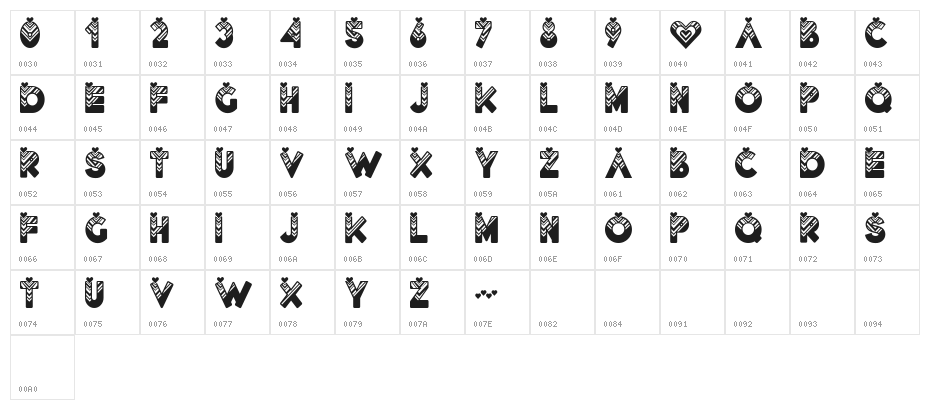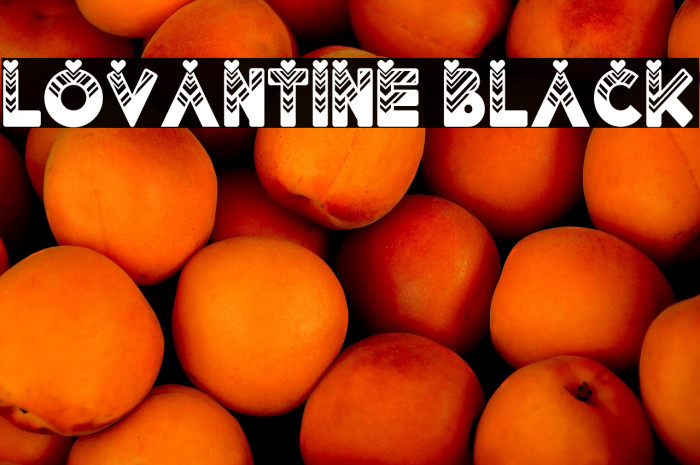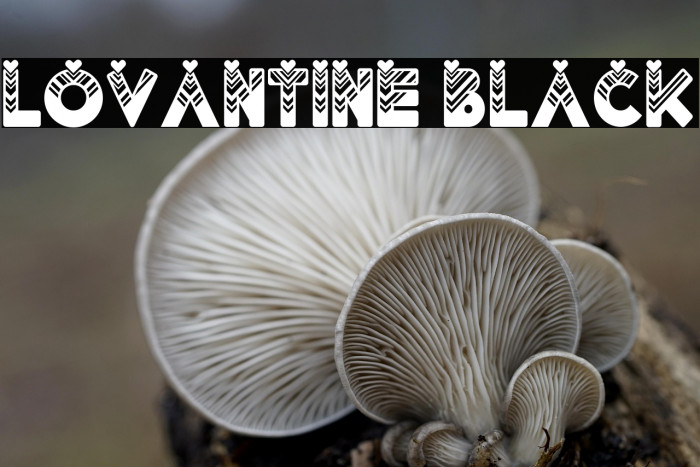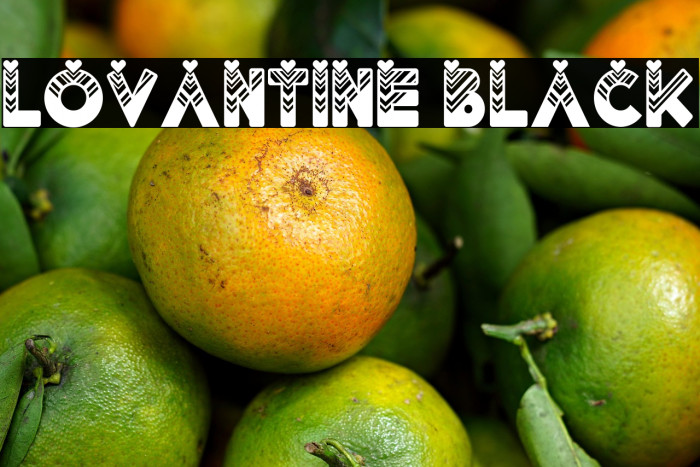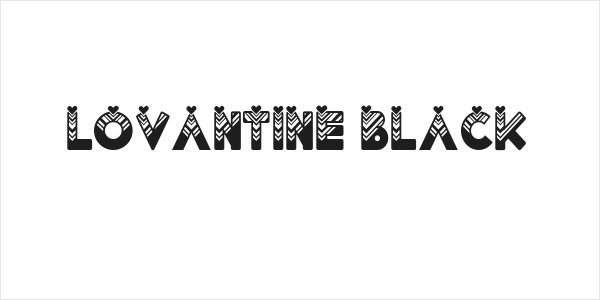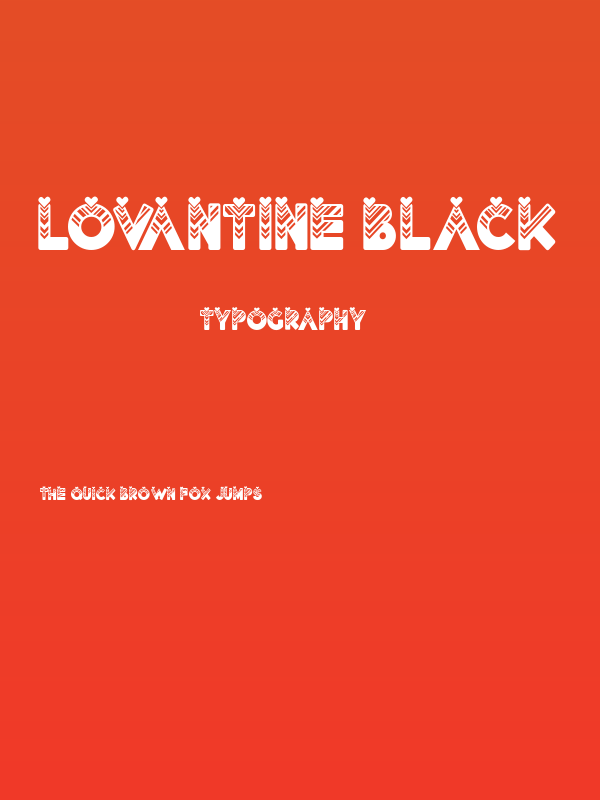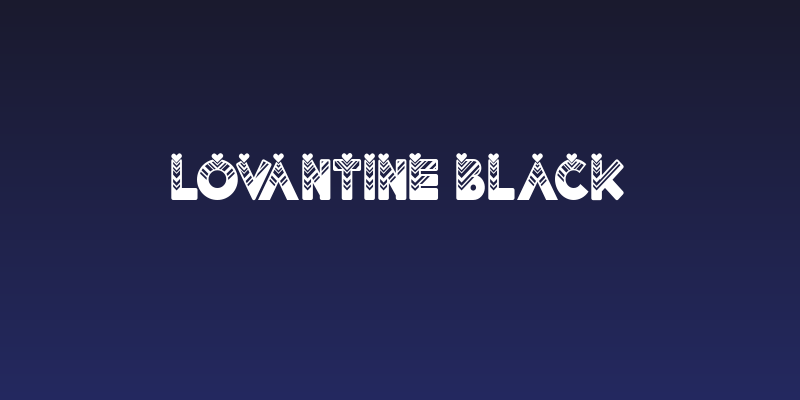
Lovantine Black Font
Lovantine Black Description
This font features a bold and playful design with a decorative style. Each character is adorned with heart-shaped accents at the top, adding a whimsical touch. The letters and numbers are filled with intricate patterns, including stripes and chevrons, giving them a unique and eye-catching appearance. The overall look is bold and impactful, making it suitable for designs that require a fun and engaging aesthetic. The font's distinct style makes it ideal for creative projects that aim to capture attention and convey a sense of joy and playfulness.
| Proposed Projects | Ideal for Valentine's Day cards, children's book covers, playful branding, and festive event invitations. |